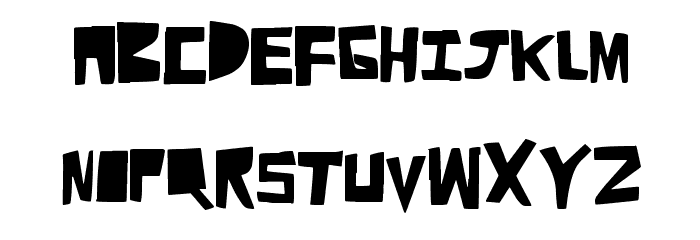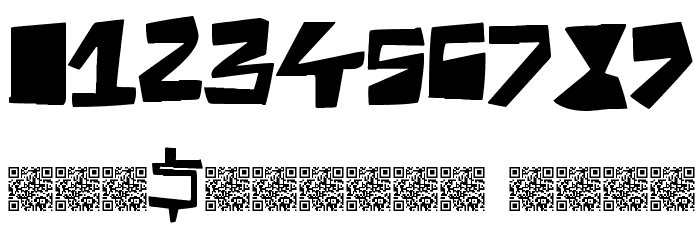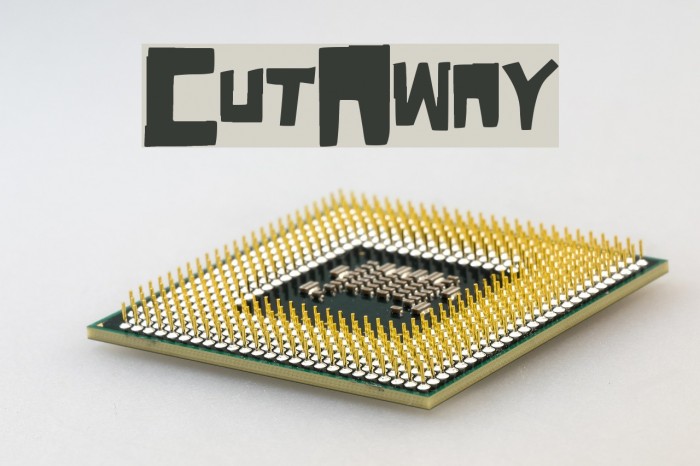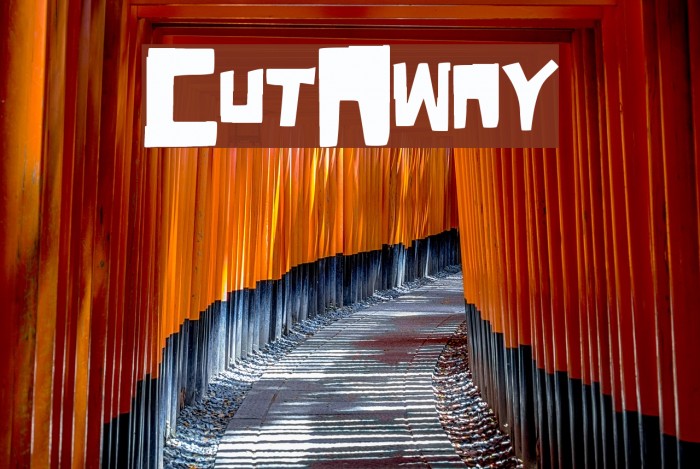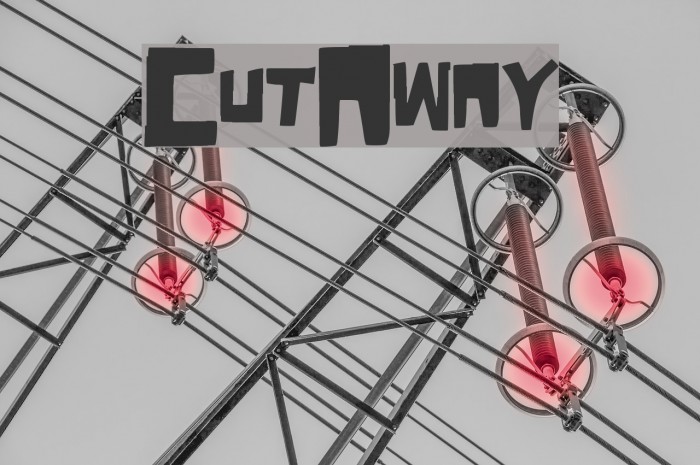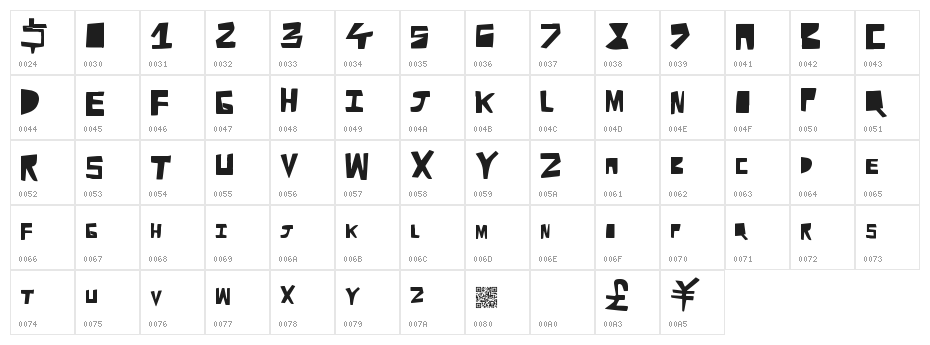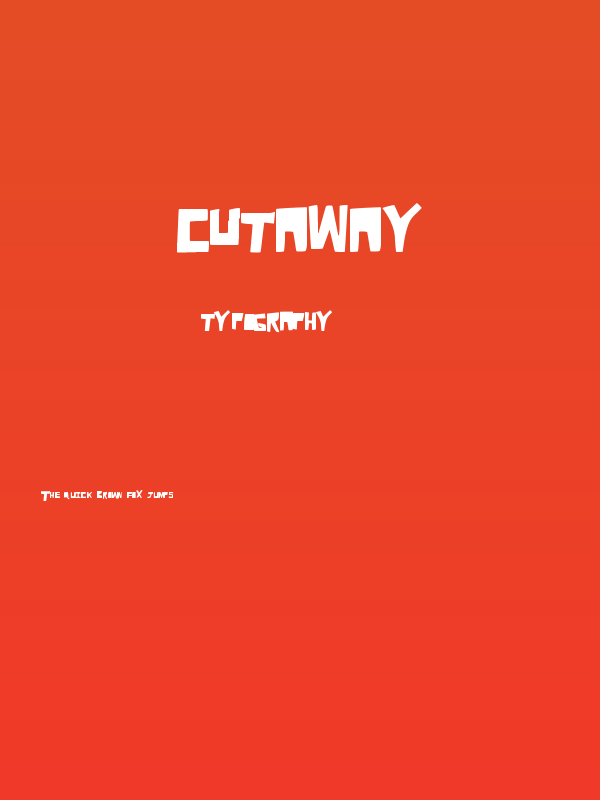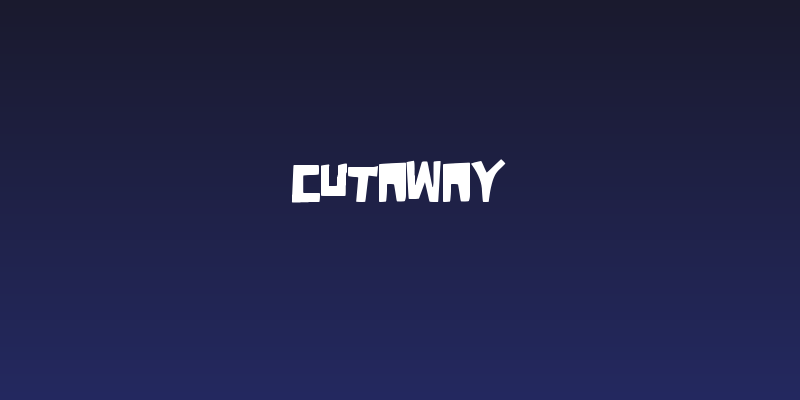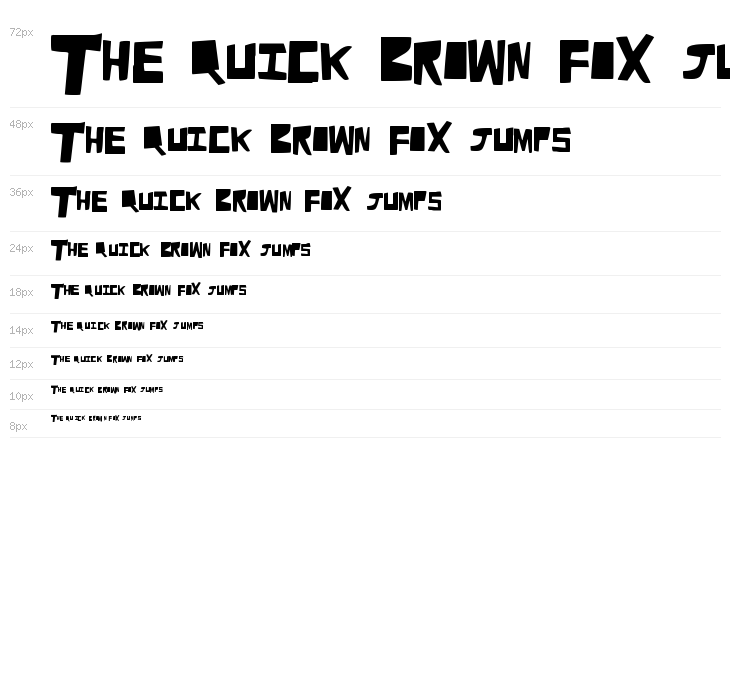
CutAway Font
This font features a bold, angular design with a distinctly modern and edgy appearance. The characters are heavily stylized, with sharp edges and irregular shapes that give it a unique, almost hand-cut look. The uppercase and lowercase letters maintain a consistent style, with a strong emphasis on geometric forms. Numbers and special characters follow the same design principles, ensuring a cohesive visual identity across all glyphs. The font's boldness and distinctive style make it ideal for attention-grabbing designs.
A bold, angular font with a modern, edgy style.
- Proposed Projects: This font is perfect for projects that require a strong visual impact, such as posters, album covers, branding for edgy or alternative products, and modern art installations.